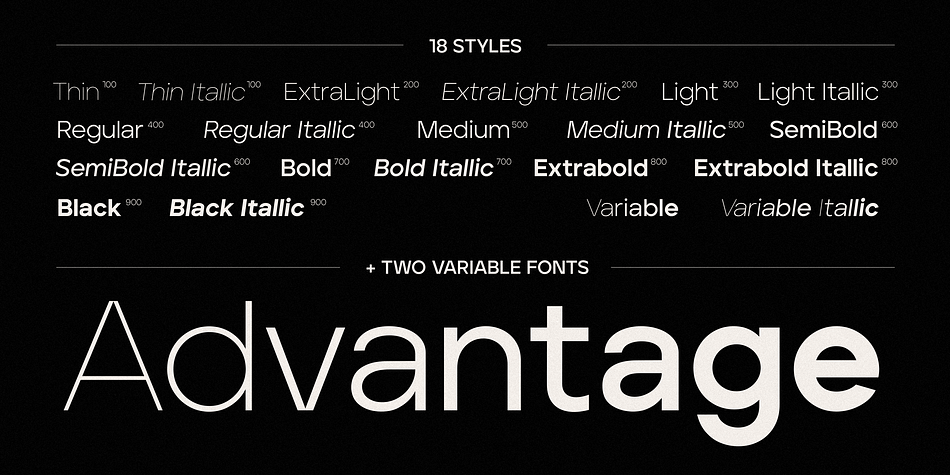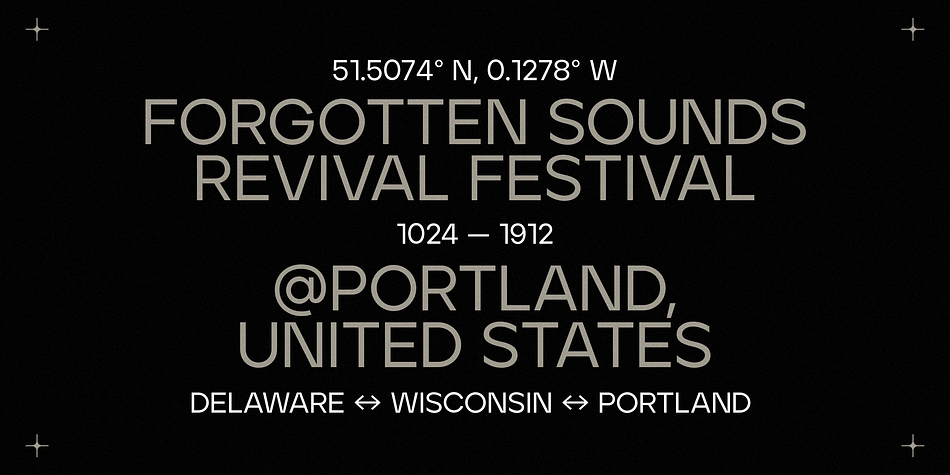
Aventa Variable Typeface
Designed by Ellen Luff and Tom Watkins, Aventa Variable Typeface is a sans serif font family. This typeface has twenty styles and was published by Ellen Luff.
Aventa is an exciting geometric typeface with contemporary touches. It’s born from strong elementary shapes, with clean circles interwoven with modern cuts and sharp edges.
It has distinctive voice, retaining the simplicity and elegance of classic geometric typefaces with a fresh, stylish rework.
Its bold in personality and fills the space without shouting, appearing refined and confident. It’s high X-height and strong capitals sustain a large amount of visibility across all weights, and have been optically corrected for even better legibility.
It has been designed as a variable font to give lots of options and access to unique type looks; however it also includes nine weights to give just as much access to creativity to those without access to variable supporting software. Aventa’s matching italics sloped at a lively 8º help give it a full range of expressions.
Its distinctive character and many variables make it a versatile, stylish workhorse, great for interfaces and design.
Each font contains just under 400 glyphs with full Western, Central and Eastern European language support.
Designers Ellen Luff, Tom Anders Watkins